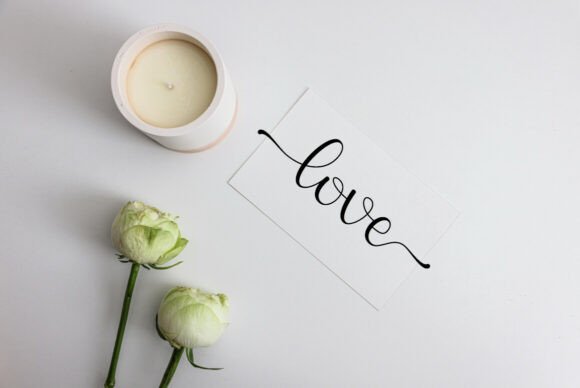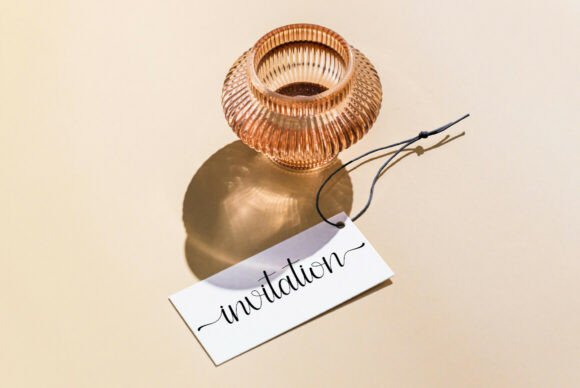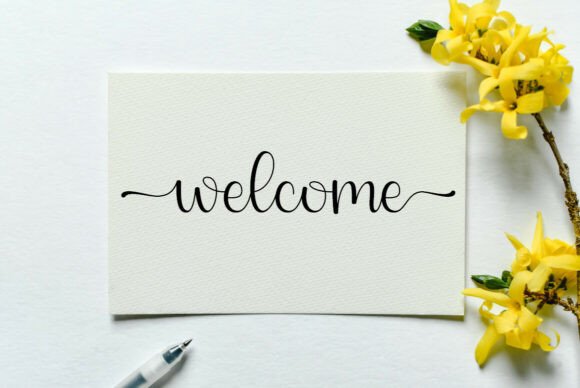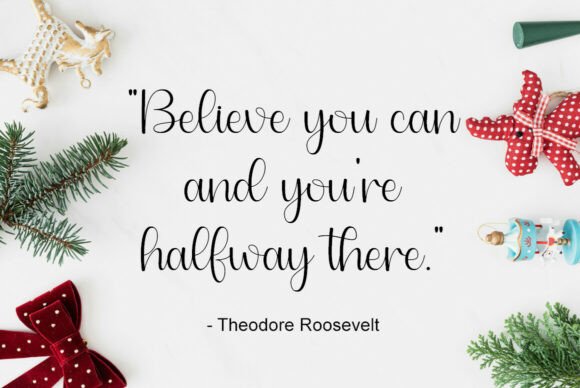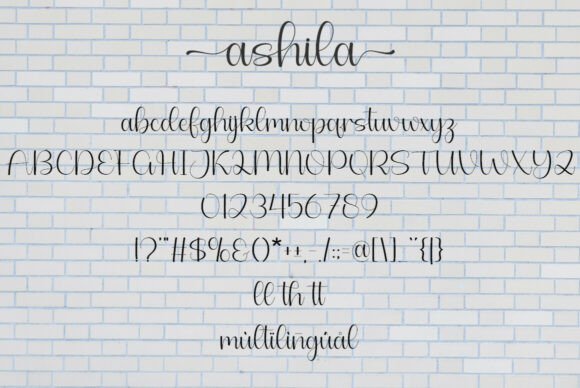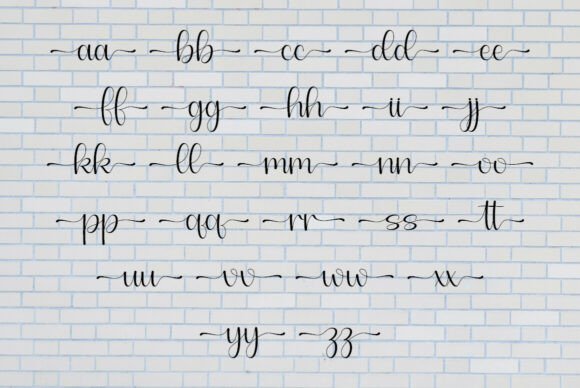
A Perfect Match for Your Creative Vision
Have you ever been stuck on a design project, struggling to find the right font to bring your vision to life? You know the feeling – it’s like trying to put together a puzzle without the right piece. But what if I told you there’s a font that can help you unlock your full creative potential? Enter the Ashila Font, a delicate, elegant, and flowing handwritten font that’s sure to captivate your audience.
Ashila Font is perfect for designers who crave a timeless and distinct style that sets their projects apart. With its PUA encoding, you’ll have access to all the glyphs and swashes you need to create spectacular designs. Whether you’re a seasoned pro or just starting out, this font is a valuable addition to your toolkit – and with its ease of use, you’ll be falling in love with it in no time.
Ashila Font Key Features
- Unique Characteristics: The Ashila font features a unique blend of traditional and modern elements, making it an excellent choice for creating unique designs.
- Language Support: The font supports multiple languages, including English, Spanish, French, and many others.
- Font Style: Available in regular, italic, bold, and bold italic styles, providing versatility for various design needs.
Ashila Font Review
Overall, I found the Ashila font to be a beautifully crafted script font. ✨ One of its strongest aspects is its elegant, cursive design which makes it perfect for headings, titles, and even logos. The font is well-suited for creative projects such as wedding invitations, magazine covers, and restaurant menus.
The Ashila font features a wide range of glyphs and characters, making it highly customizable. ✨ This is particularly useful for designers who want to add a personal touch to their projects. The font also comes in various weights, from light to bold, allowing for a good range of design options.
- ⚠️ The Ashila font may not be ideal for body text due to its cursive design, which can be difficult to read at smaller font sizes.
Overall, the Ashila font is a great addition to any designer’s toolkit, particularly for projects that require a touch of elegance and sophistication. While it may have some limitations, its unique design and high level of customization make it a valuable asset for any designer looking to add some flair to their work.
Getting the Most Out of Ashila Font
To get the most out of Ashila font, try:
- Experimenting with different font sizes and styles
- Combining Ashila with other fonts for a unique look
- Using Ashila for headings and subheadings to create visual hierarchy
Ashila font is commonly used for:
- Branding and
Alternatives to Ashila Font
Great Vibes is a modern, elegant script font that is perfect for creating a professional and sophisticated look. It is ideal for use in logos, branding, and packaging designs where a touch of luxury is desired.
Comparison to Ashila Font: While Ashila Font has a more delicate and cursive feel, Great Vibes Font is more bold and elegant, making it a great choice for designers who want to add a sense of sophistication to their designs.
Lato is a clean, sans-serif font that is perfect for use in body text, headings, and titles. It is highly legible and versatile, making it a great choice for designers who want a font that can be used across multiple platforms.
Comparison to Ashila Font: While Ashila Font is more decorative and cursive, Lato Font is more straightforward and simple, making it a great choice for designers who want a font that can be used in a variety of contexts.